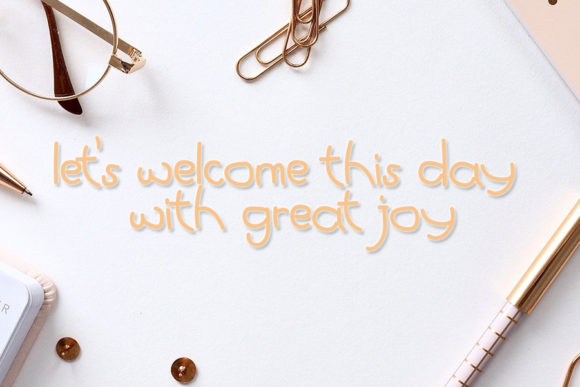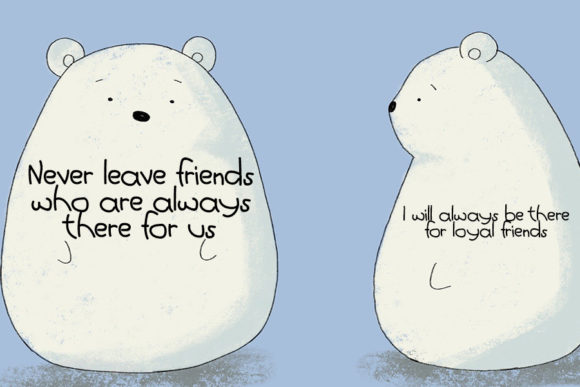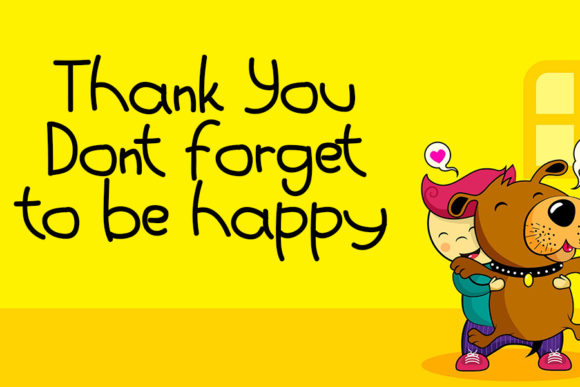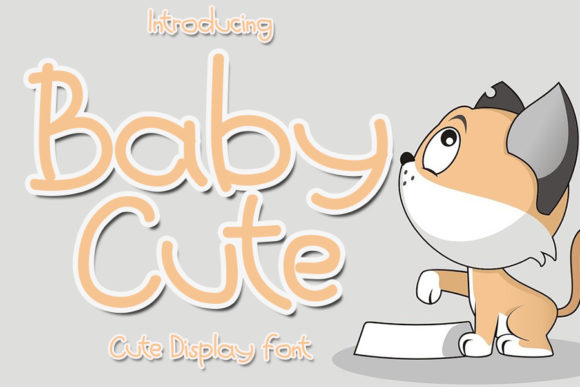
Baby Cute Font: Add a Touch of Whimsy to Your Designs
In the world of typography, fonts play a crucial role in conveying the tone and personality of a brand or design. If you’re looking for a font that exudes cuteness and quirkiness, look no further than the Baby Cute Font. This adorable handwritten font is perfect for designers and crafters who want to add a touch of whimsy to their creations.
What is Baby Cute Font?
Baby Cute Font is a unique and charming handwritten font that is suitable for a wide range of design applications. Its playful and carefree vibe makes it an excellent choice for branding, product packaging, invitations, quotes, t-shirts, labels, posters, logos, and more.
Key Features of Baby Cute Font
- Cute and Quirky: Baby Cute Font boasts a distinctive and endearing quality that is sure to capture the hearts of your audience.
- Handwritten: The font’s handwritten nature gives it a personal and organic feel, making it perfect for designs that require a touch of warmth and personality.
- Versatile: Baby Cute Font is incredibly versatile and can be used for a wide range of design applications, from branding and packaging to invitations and quotes.
- Easy to Read: Despite its playful nature, Baby Cute Font remains easy to read, making it an excellent choice for body text and headlines.
Use Cases for Baby Cute Font
Baby Cute Font is an incredibly versatile font that can be used in a variety of design applications. Here are some use cases to get you started:
- Branding: Use Baby Cute Font to create a unique and memorable brand identity that stands out from the crowd.
- Product Packaging: Add a touch of whimsy to your product packaging with Baby Cute Font, making it perfect for food, beverage, or lifestyle products.
- Invitations: Create adorable invitations for baby showers, birthday parties, or other celebrations with Baby Cute Font.
- Quotes and Posters: Use Baby Cute Font to create inspiring quotes, posters, or social media graphics that are sure to delight your audience.
- T-Shirts and Merchandise: Baby Cute Font is perfect for creating fun and playful designs for t-shirts, mugs, and other merchandise.
Tips for Using Baby Cute Font
To get the most out of Baby Cute Font, here are some tips to keep in mind:
- Pair with Other Fonts: Experiment with pairing Baby Cute Font with other fonts to create a unique and visually appealing combination.
- Use for Headlines and Titles: Baby Cute Font is perfect for headlines and titles, but consider using a more straightforward font for body text.
Baby Cute Font is a delightful and versatile font that is sure to add a touch of whimsy to your designs. Its cute and quirky nature makes it perfect for a wide range of design applications, from branding and packaging to invitations and quotes. Whether you’re a designer or crafter, Baby Cute Font is an excellent addition to your typography toolkit.